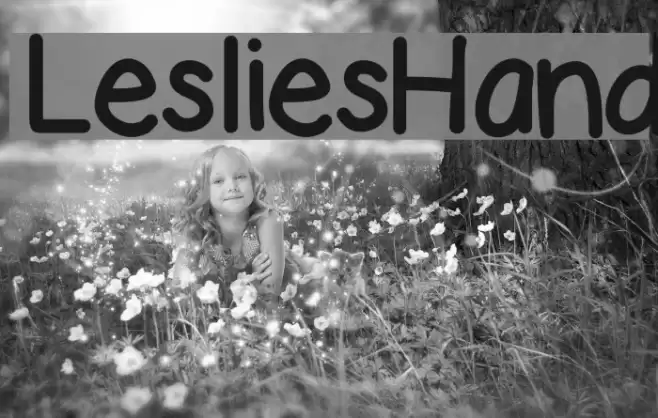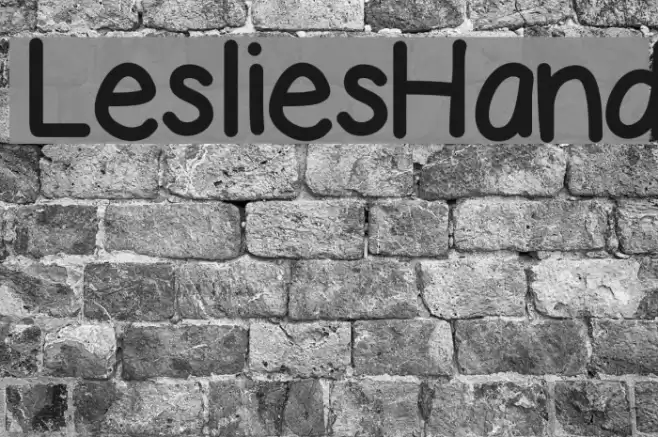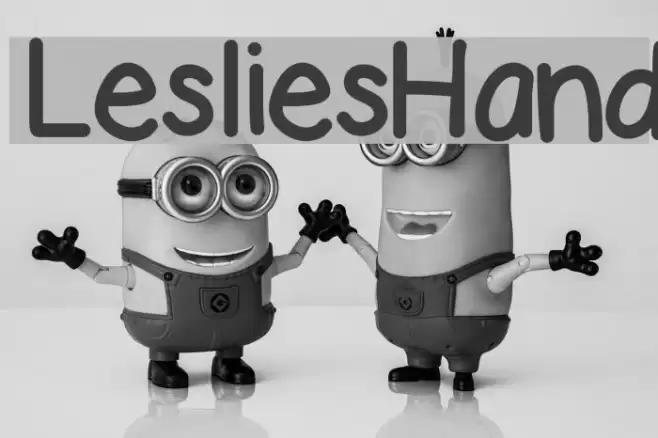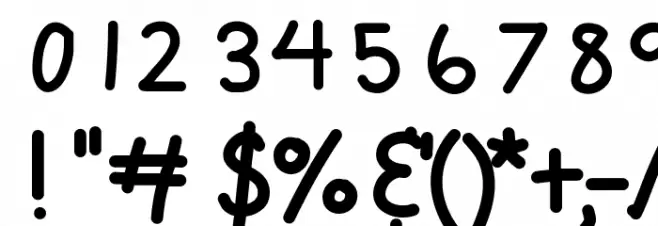
LesliesHand Font
LesliesHand Description
This playful and informal font features rounded, hand-drawn characters that exude a friendly and approachable vibe. The letters are slightly irregular, mimicking the natural flow of handwriting, which adds a personal touch to any design. The strokes are consistent in weight, providing a uniform appearance while maintaining a casual aesthetic. The font includes a full set of uppercase and lowercase letters, numbers, and a variety of special characters, making it versatile for various applications. Its whimsical style is perfect for projects that require a touch of creativity and warmth.
A playful, hand-drawn font with rounded, informal characters from Uncategorized fonts.
- Proposed Projects: Ideal for children's books, greeting cards, casual branding, and playful social media graphics.
- Overall Style: Casual
- Use Case: Headlines, Informal text, Creative projects